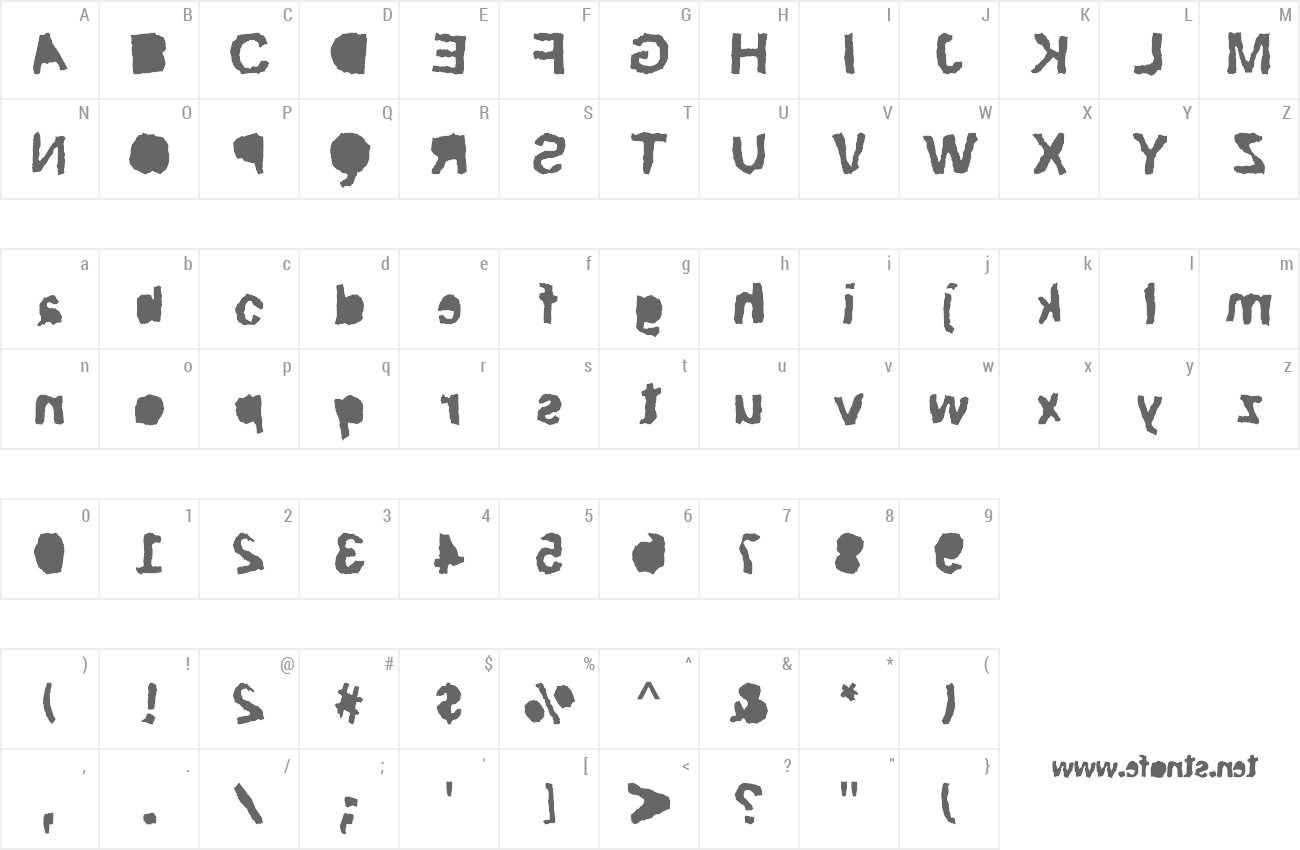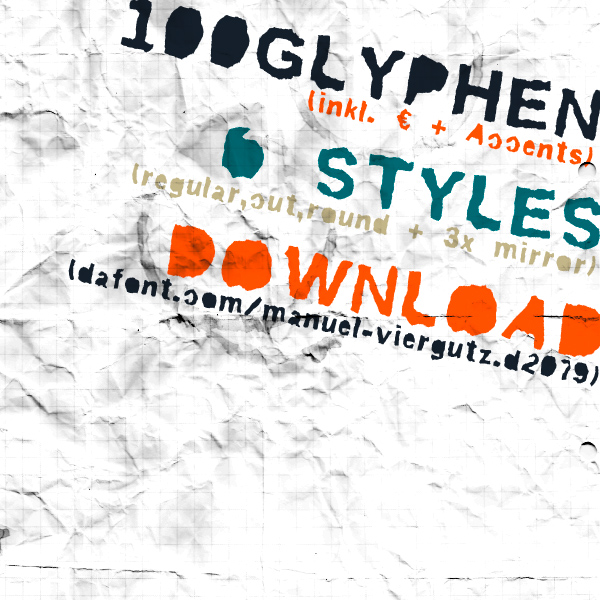
Preview and download Rip Trash Font. Created by Manuel Viergutz | Typo Graphic Design in Fancy Destroy styles with Free for personal use license.
Headline Font / Display Font / Raw Handmade Font "rip TRASH" with 6 stlyes (regular, mirror, cut, cutMIRROR, round, roundMIRROR) & 100 glyphs inkl. accents & € INFO If you want to use this font for commercial projects, please contact me: manuel.viergutz[at]gmx.de or donate an amount greater-than-or-equal EUR 15 / $ 19 (for commercial licence). I also appreciate it if you send me links /images of your (non)-commercial work featuring this font. DOCUMENTATION of ripTRASH More... |